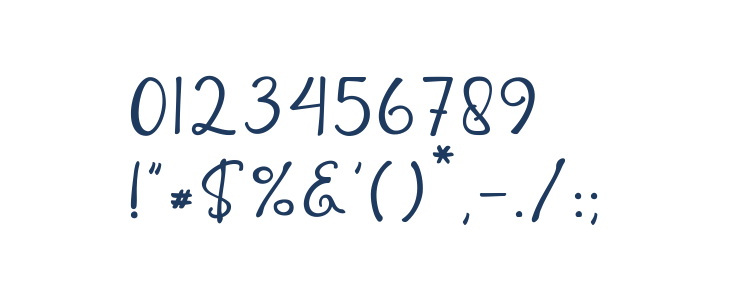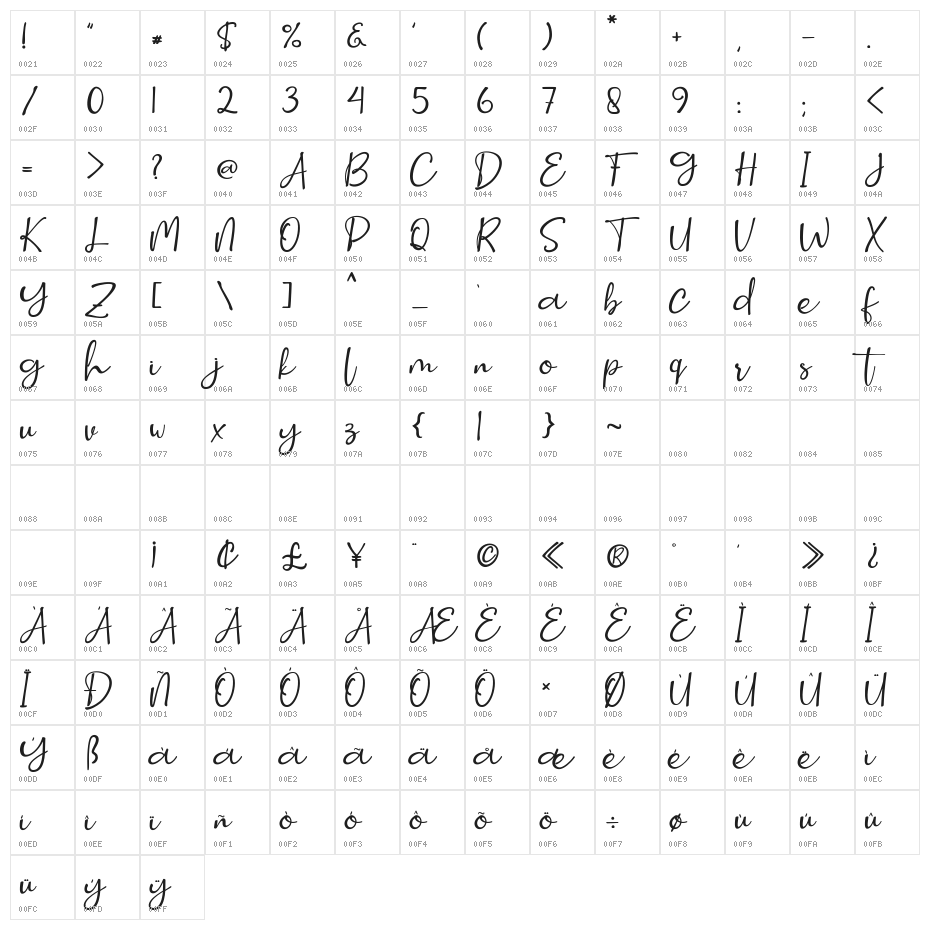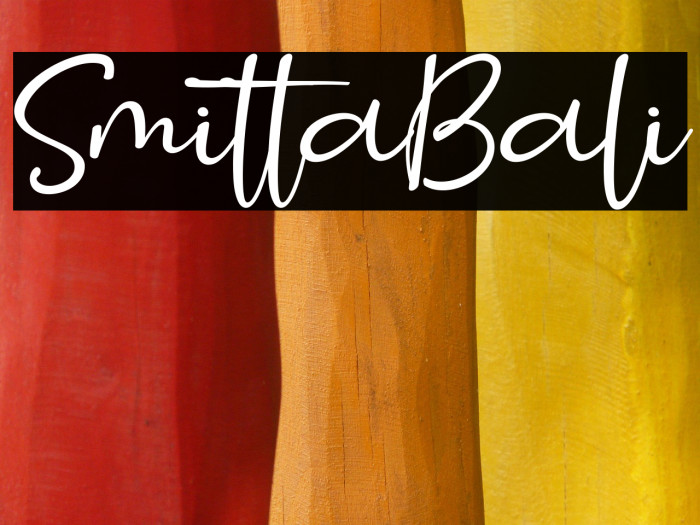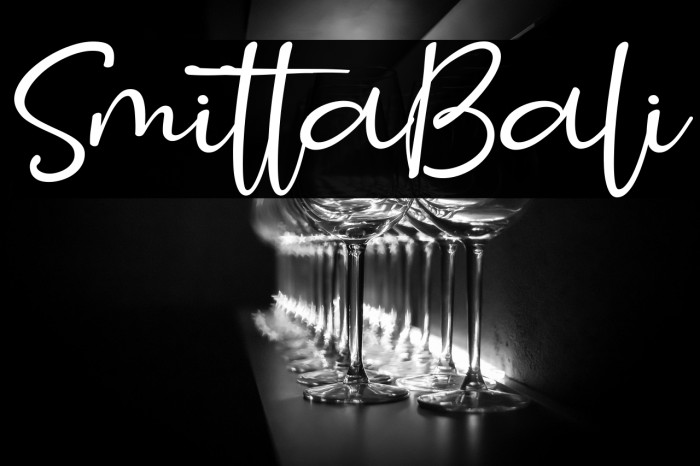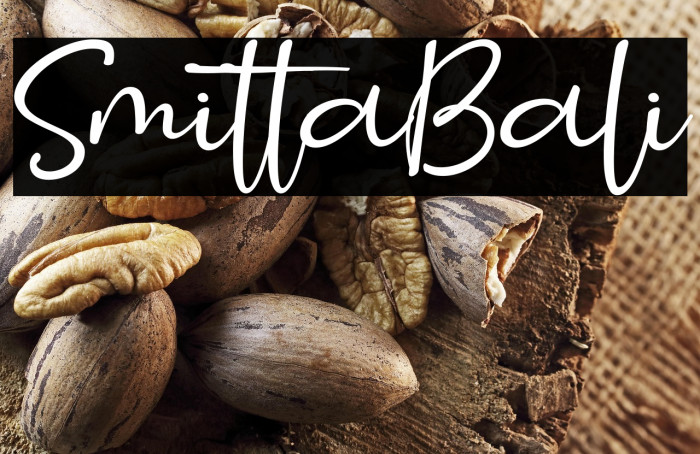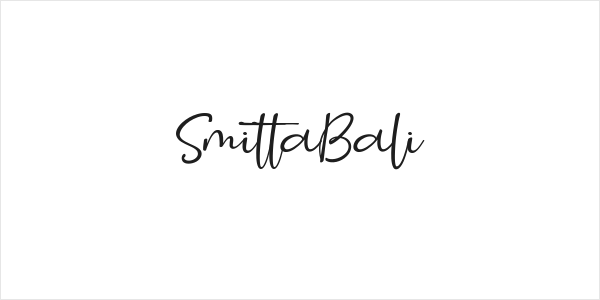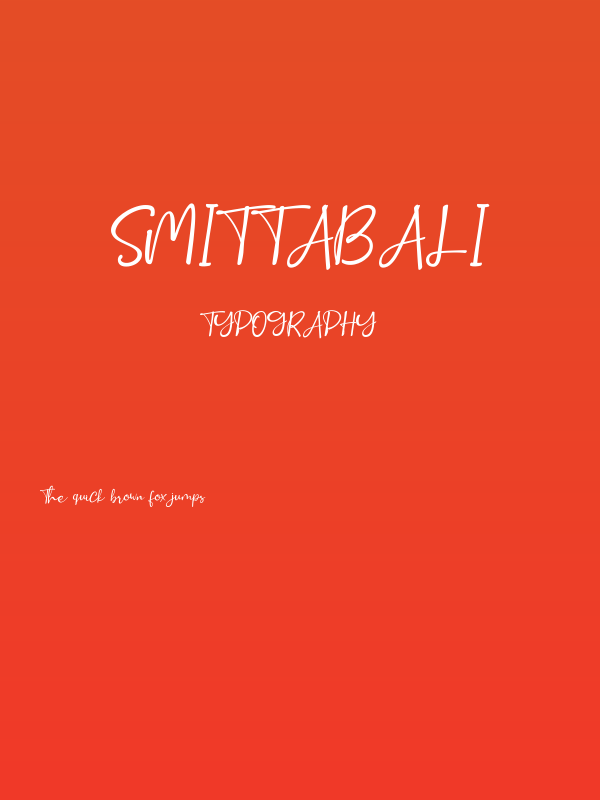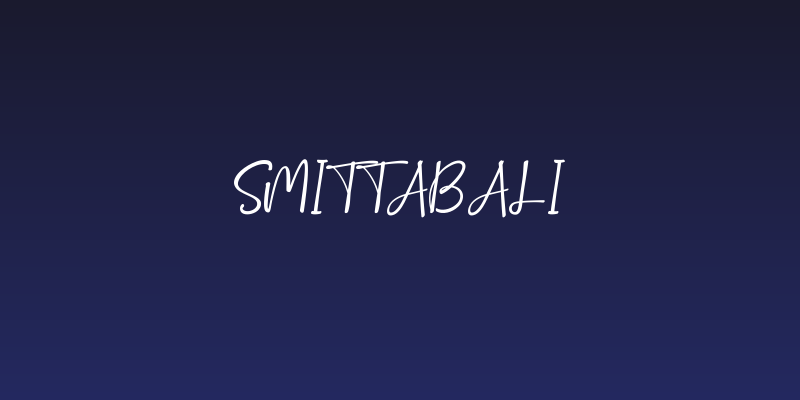
SmittaBali Font
SmittaBali Description
This font exudes a playful and casual handwritten style, characterized by its fluid and dynamic strokes. The uppercase letters are bold and slightly slanted, giving a sense of movement and energy. The lowercase letters maintain a consistent flow, with some characters featuring unique loops and curves that add to the font's charm. The numerals are rounded and easy to read, complementing the overall aesthetic. Special characters are creatively designed, maintaining the handwritten feel. This font is perfect for projects that require a personal touch, such as invitations, greeting cards, or creative branding.
| Proposed Projects | Ideal for invitations, greeting cards, personal branding, and creative projects. |